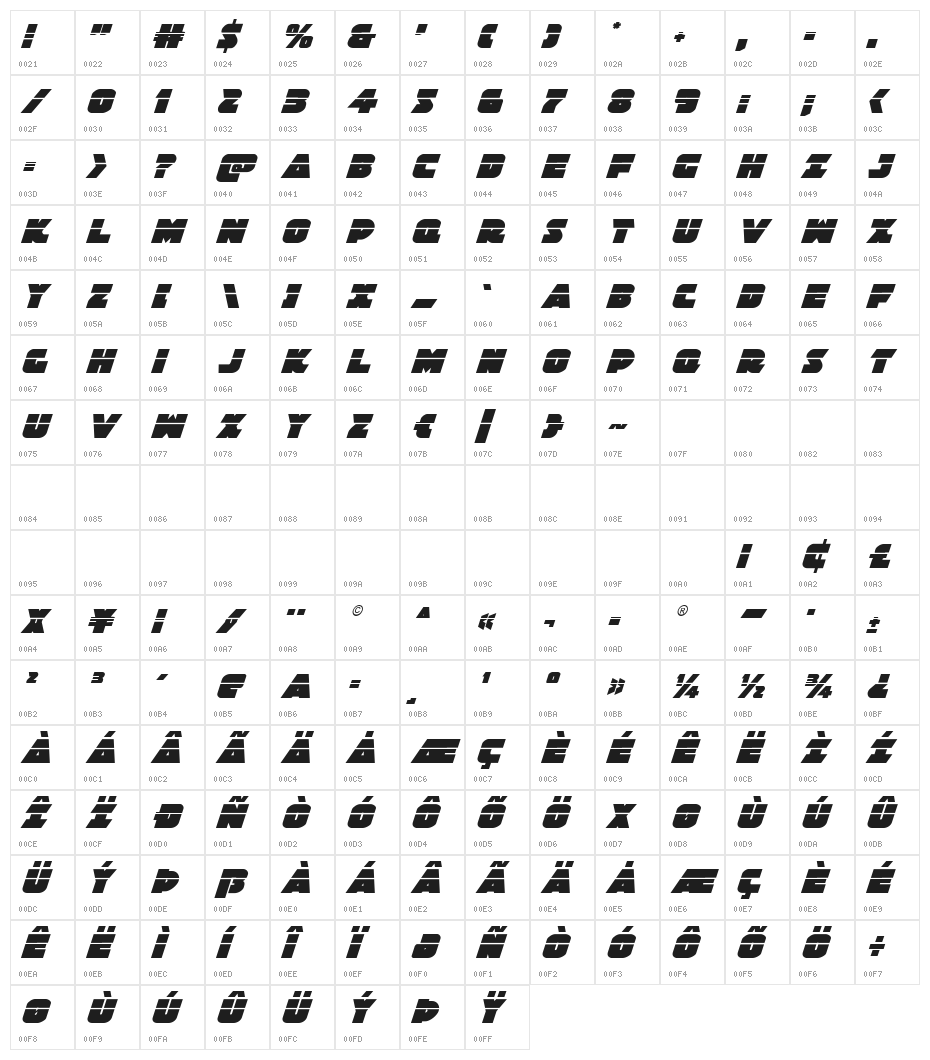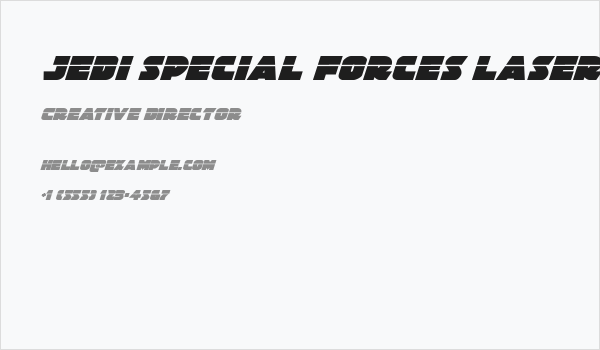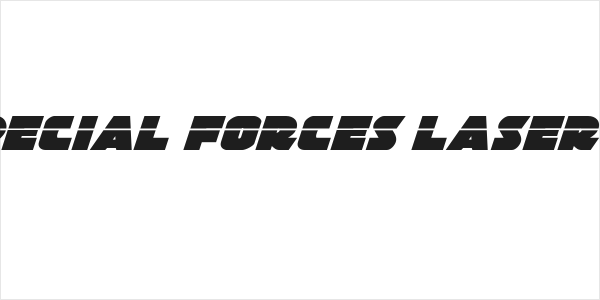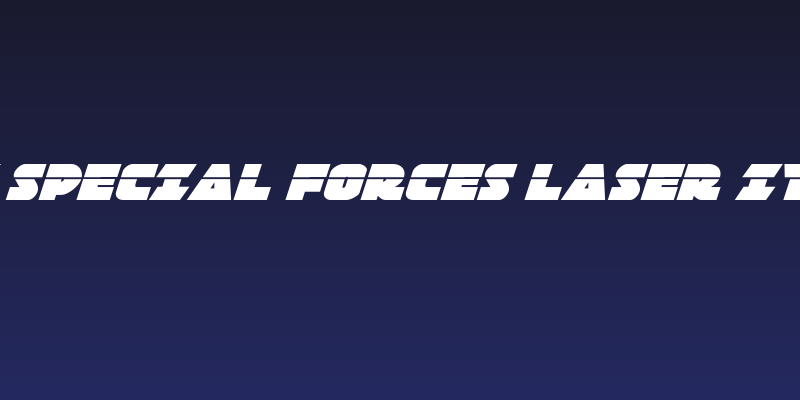
Jedi Special Forces Laser Italic Font
Jedi Special Forces Laser Italic Description
This font features a bold and futuristic design with a strong emphasis on angular shapes and sharp edges. The characters are italicized, giving a sense of motion and speed, reminiscent of science fiction aesthetics. The uppercase and lowercase letters maintain a consistent style, with wide, block-like forms that convey strength and modernity. The numerals and special characters follow the same design principles, ensuring uniformity across all glyphs. The font's distinct style makes it ideal for projects that require a dynamic and impactful visual presence.